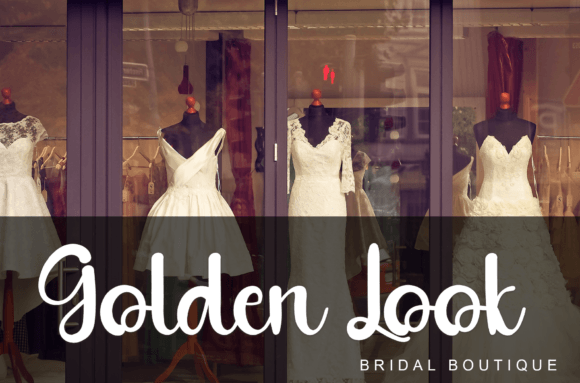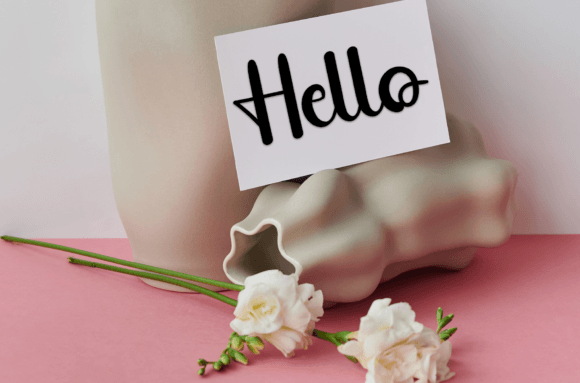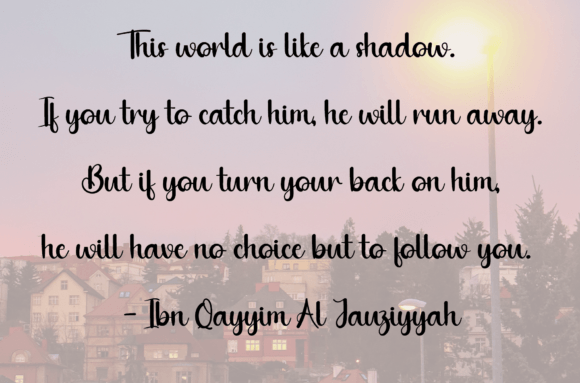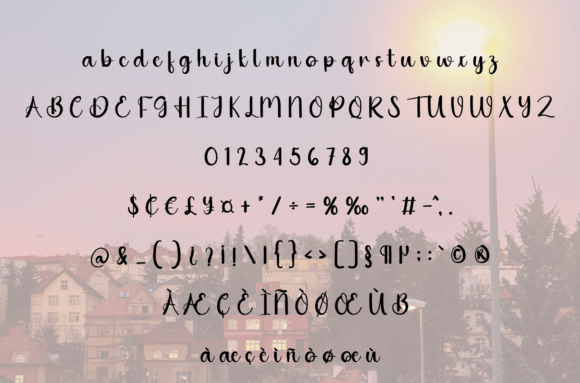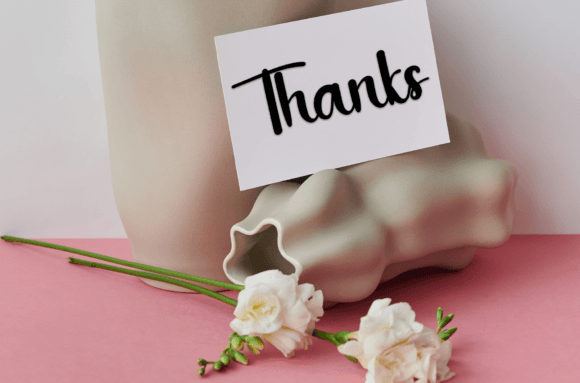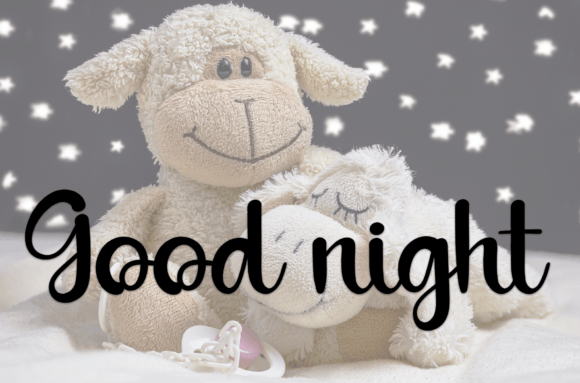
Ghosting Font
Add Whimsy and Warmth with Ghosting Handwritten Font
The Ghosting Handwritten Font is a charming and cheerful typeface that brings a fun, relaxed, and personal vibe to your design projects. With its smooth curves and friendly appearance, Ghosting is perfect for adding a handwritten touch to everything from romantic invitations to social media graphics.
Whether you’re creating something for yourself or a client, this font delivers a heartfelt feel that stands out.
Perfect for Invitations, Cards, and More
Ghosting is particularly suited for wedding invitations, greeting cards, love notes, and event materials. Its light and sweet tone enhances the emotional feel of your message, making your text more memorable and impactful.
In addition, this handwritten font is a great fit for branding and packaging. If you’re working on a project that calls for authenticity—such as a handmade product label, a small business logo, or boutique packaging—Ghosting can elevate your design while keeping it approachable and friendly.
A Relaxed Script with Playful Letterforms
The beauty of the Ghosting Font lies in its handcrafted charm. Each letter flows naturally with smooth lines and soft details, mimicking the warmth of a handwritten note. Despite its casual feel, it’s still clean and balanced—making it easy to read at any size.
Because of this balance, Ghosting can be used in both headline text and supporting content without losing its impact. It’s ideal for designs that need personality without sacrificing legibility.
Excellent for Both Print and Digital Use
Whether you’re designing for print or screen, Ghosting will keep your work looking polished and heartfelt. It works beautifully on T-shirts, mugs, posters, and stationery, as well as Instagram posts, blog banners, Etsy listings, and more.
For a clean and modern design contrast, try pairing Ghosting with a minimal sans-serif font. This helps emphasize the handwritten script while creating visual harmony in your layout.
Why Designers Choose Ghosting Handwritten Font
Here’s why Ghosting is a favorite among creatives:
• Sweet and playful handwritten style
• Clean, flowing letterforms for easy readability
• Ideal for romantic, casual, and creative projects
• Works great in both digital and print formats
Let Ghosting Brighten Your Designs
In summary, the Ghosting Handwritten Font is a joyful and expressive script that brings heart and charm to any creative work. From invitations to Instagram quotes, Ghosting helps convey warmth, love, and authenticity in every stroke.
If you’re looking for a versatile handwritten font with a soft, relaxed character, Ghosting is the perfect choice to add a personal touch to your next design.